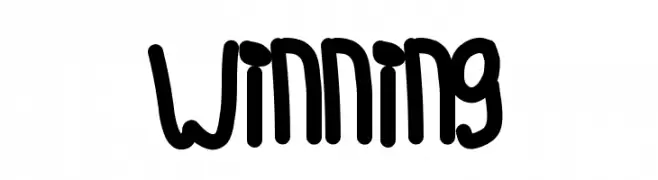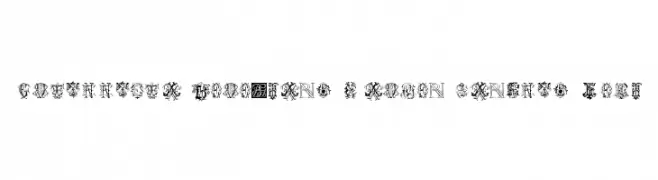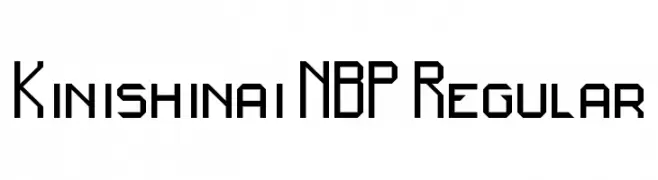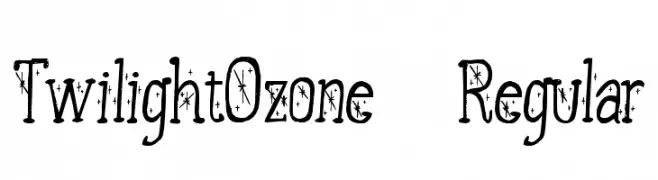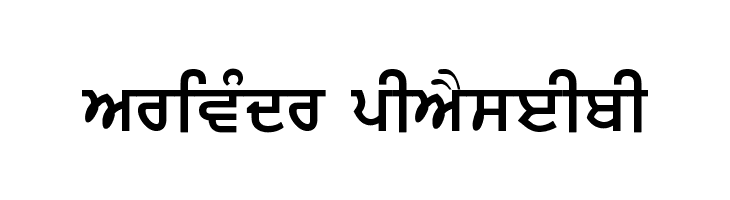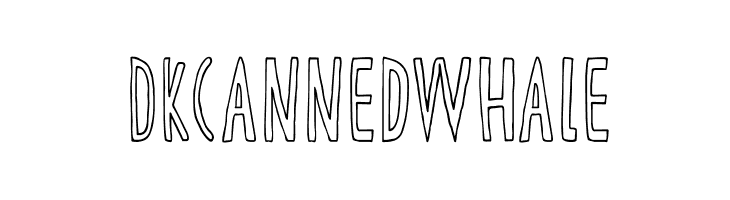
( Fonts by Lee Batchelor http://leeviathan.com/portfolio/fonts/ )
A playful, casual handwritten font with smooth, flowing lines.
( Fonts by Kelvin )
A playful, casual handwritten font with uneven strokes and a friendly appearance.
( Fonts by Des Gomez )
A playful, bold handwritten font with rounded edges and a casual style.
( Fonts by Alex Tomlinson - Skyhaven Fonts - shfonts.com )
A modern, abstract font with elongated, angular letterforms and decorative elements.
( Fonts by Steve Cloutier - www.cloutierfontes.ca )
A decorative font with letters formed by jewel-like shapes, perfect for artistic projects.
An ornate and decorative font with intricate, vintage-inspired letterforms.
( Fonts by Alex Tomlinson - Skyhaven Fonts - shfonts.com )
A whimsical, decorative font with star-like embellishments and a hand-drawn feel.